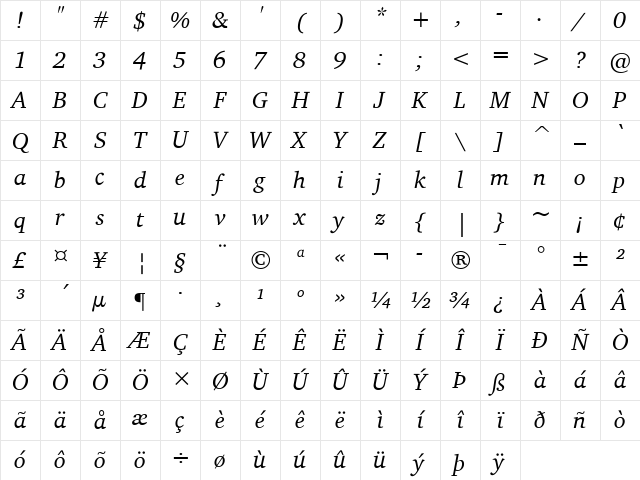
CharterITCReg Italic
Complete CharterITCReg Italic glyph index. Displaying only characters natively supported by CharterITCReg Italic font.
Design Context for CharterITCReg
CharterITCReg is a composed and adaptable typeface that performs quietly and consistently across a wide range of design contexts. The slanted form adds forward momentum and visual energy.
Pro Tip: Use CharterITCReg for emphasis, pull quotes, and subheadings where its slanted energy can add rhythm to the layout.